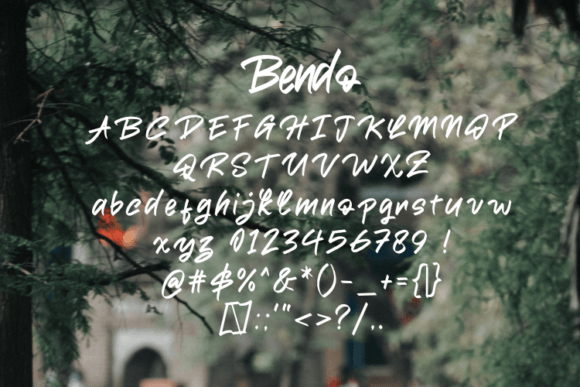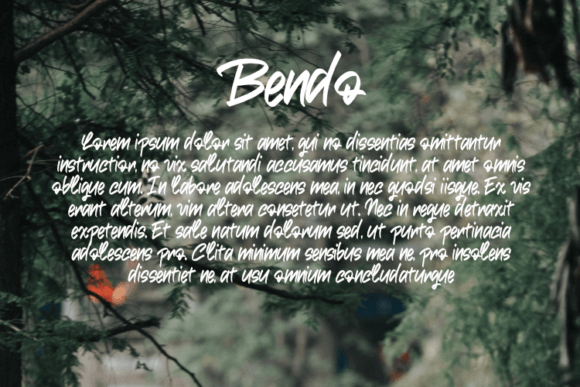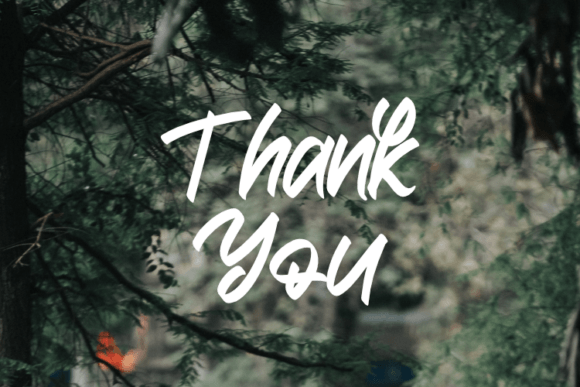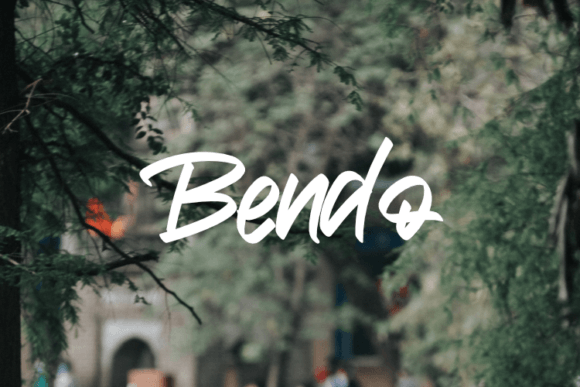
Unlock Endless Design Possibilities with Bendo Font
Are you a designer, crafter, or DIY enthusiast looking for the perfect font to elevate your apparel creations? Look no further than Bendo Font, the ultimate choice for t-shirts, hoodies, and more. In this article, we’ll dive into the world of Bendo, exploring its features, benefits, and versatility, and show you why it’s the perfect addition to your design toolkit.
The Birth of Bendo: Engineered for Compatibility
Universality and Versatility: The Bendo Advantage
What sets Bendo apart from other fonts is its effortlessly adaptable nature. This versatile font is designed to carry your unique ideas across a broad spectrum of platforms, from digital screens to physical apparel. With Bendo, you can create stunning designs for:
- T-shirts and hoodies
- Mugs and water bottles
- Signs and posters
- Digital graphics and social media assets
Whether you’re a professional designer or a crafty DIY enthusiast, Bendo’s universality and versatility make it the perfect choice for any project.
Where Style Meets Functionality
Bendo Font is not just a pretty face – it’s a masterclass in balancing style and functionality. With its clean lines, elegant curves, and highly legible design, Bendo is perfect for:
- Headings and titles
- Body text and descriptions
- Quotes and taglines
Whether you’re looking to make a bold statement or create a subtle design, Bendo’s range of styles and weights ensures you have the perfect tool for the job.
Why Choose Bendo Font?
So, what makes Bendo Font the ultimate choice for designers and crafters? Here are just a few reasons why Bendo stands out from the crowd:
- Effortless adaptability: Bendo’s versatile design makes it perfect for a wide range of projects and applications.
- High-quality design: Bendo’s elegant and clean design ensures your creations look professional and polished.
- Easy to use: Bendo’s simple and intuitive design makes it easy to get started, even for beginners.